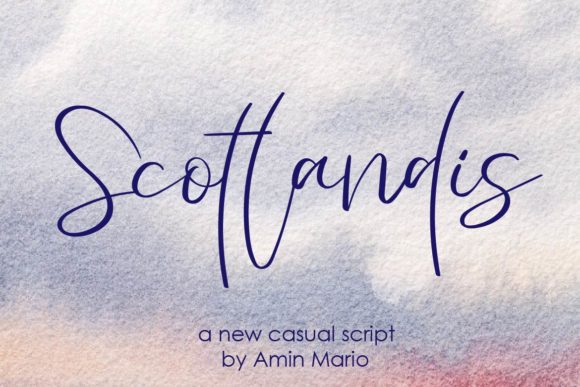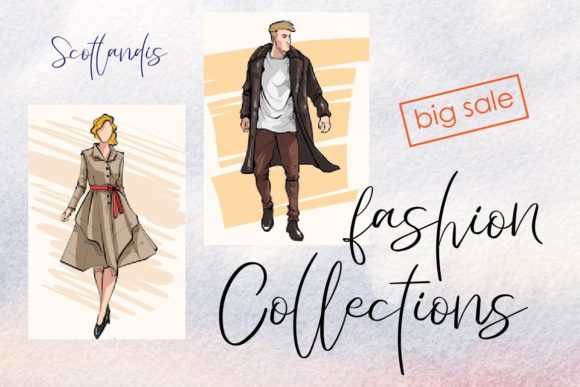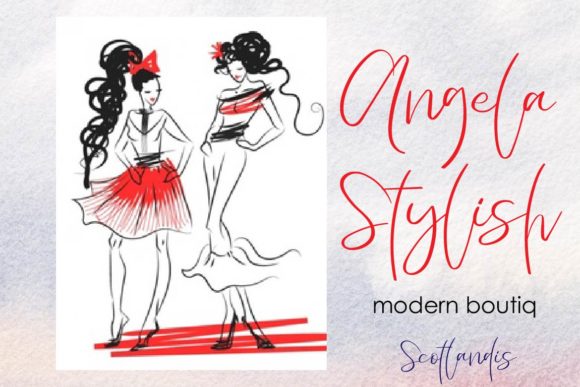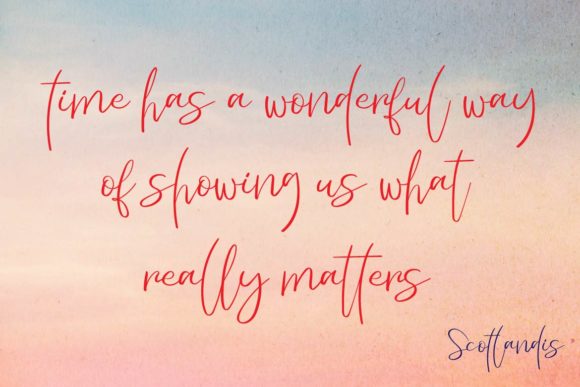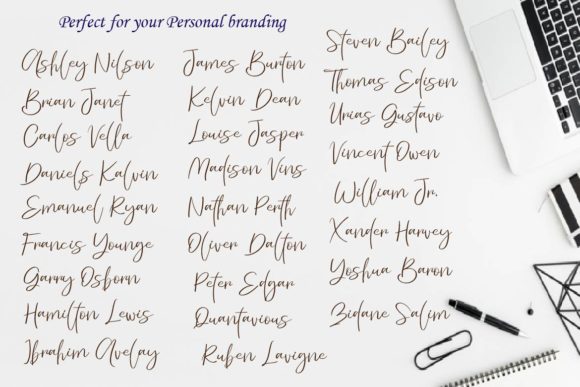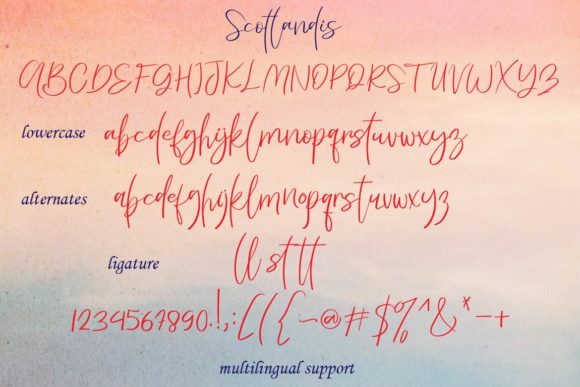
Introduction to Scotlandis Font Font
Fonts play a crucial role in design, and the Scotlandis Font font is a typeface that brings both character and versatility to any project. Whether you’re working on a branding project, a website, or a print design, the Scotlandis Font font offers a unique style that can elevate your work.
Scotlandis is a gorgeous and light script font that features an effortlessly beautiful handwritten feel.
It will ignite your creativity with its gorgeous range of alternates This font is PUA encoded which means you can access all of the pretty glyphs and swashes with ease.
Key Features of Scotlandis Font Font
Why Choose Scotlandis Font Font?
The Scotlandis Font font is more than just a typeface – it’s a design tool that helps you communicate your message with style and clarity. Its unique character set and versatile design make it suitable for a wide range of applications, from elegant invitations to bold headlines.
With its carefully crafted letterforms and balanced proportions, the Scotlandis Font font ensures readability and visual appeal across all mediums.
What makes Scotlandis Font font special?
The Scotlandis Font font stands out with its unique design, exceptional readability, and versatility across various design applications.